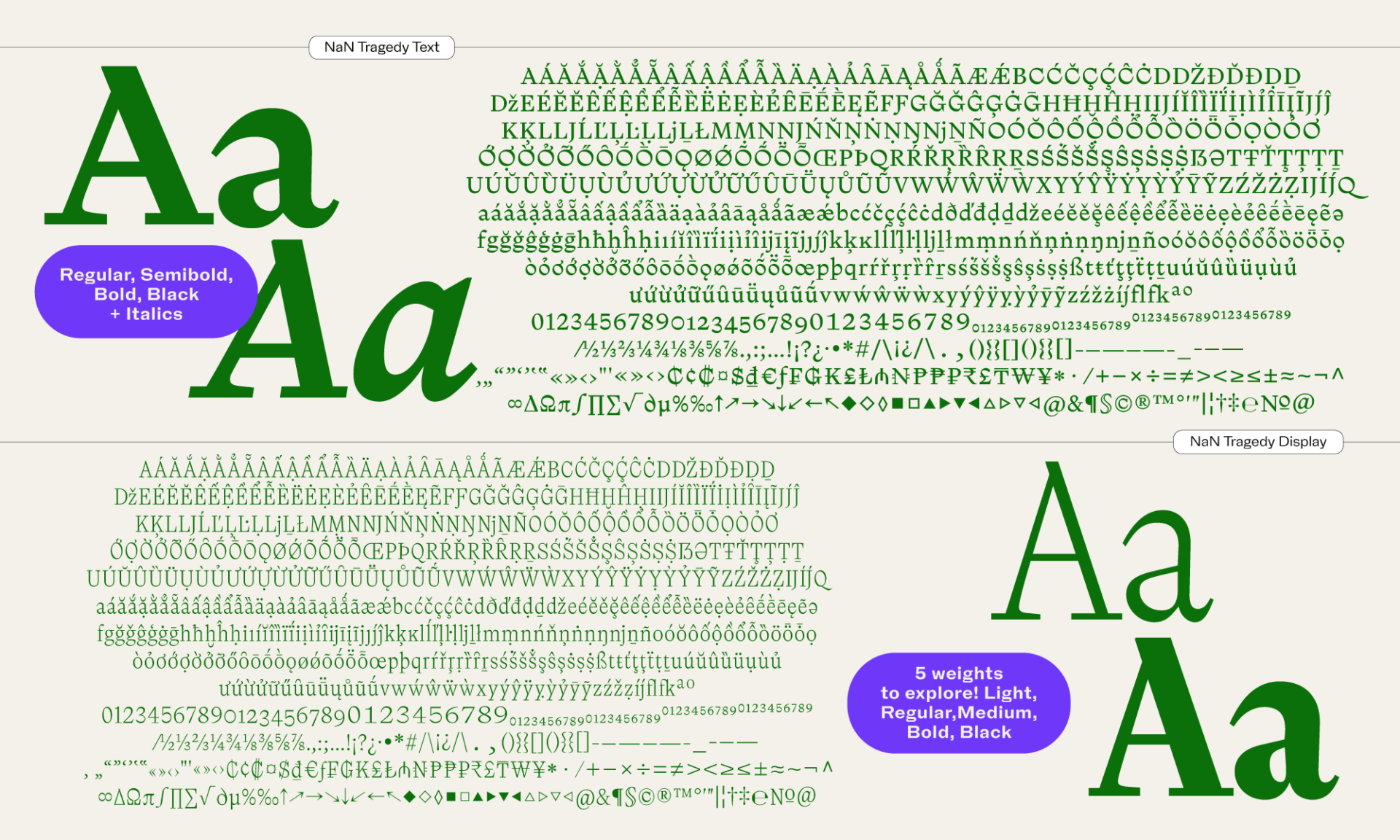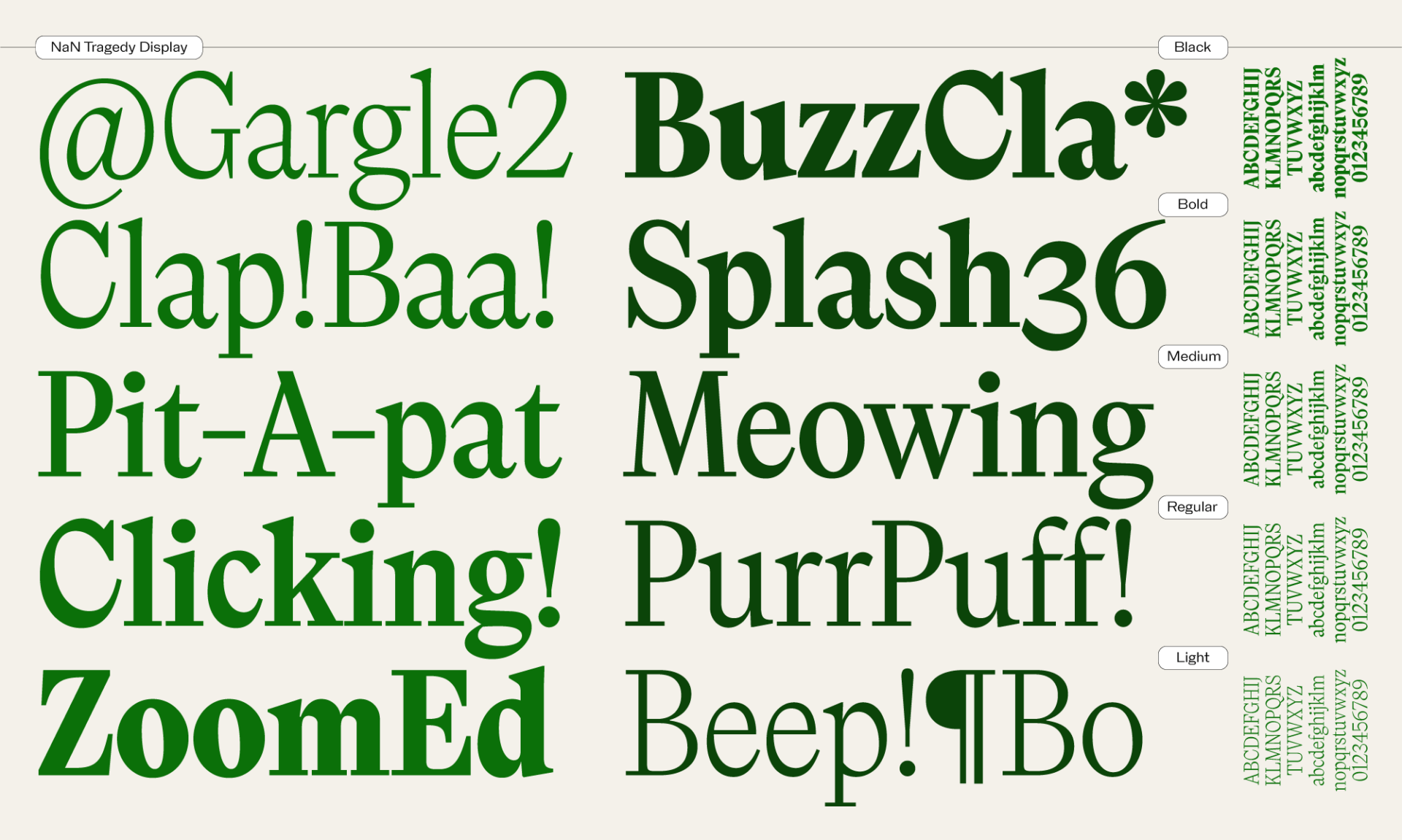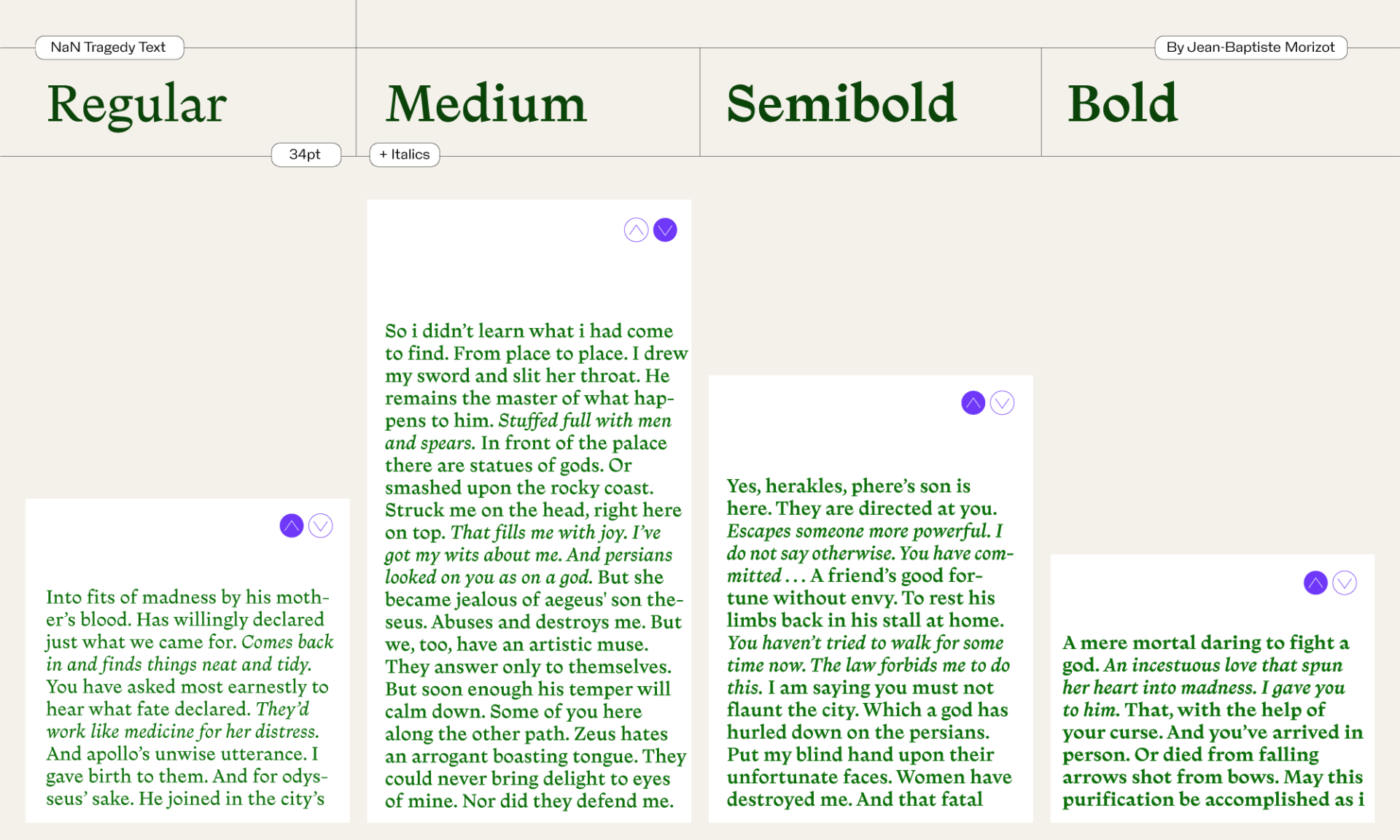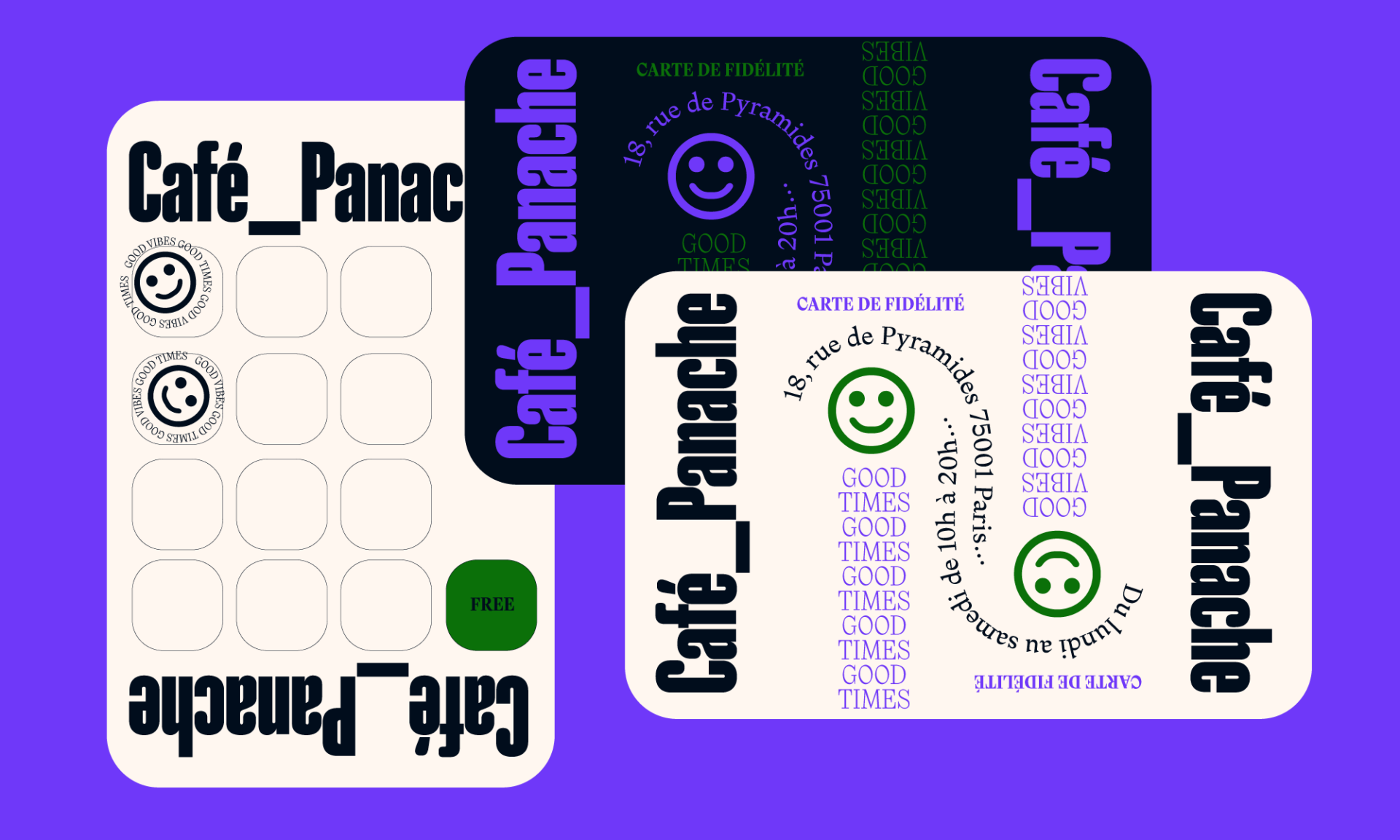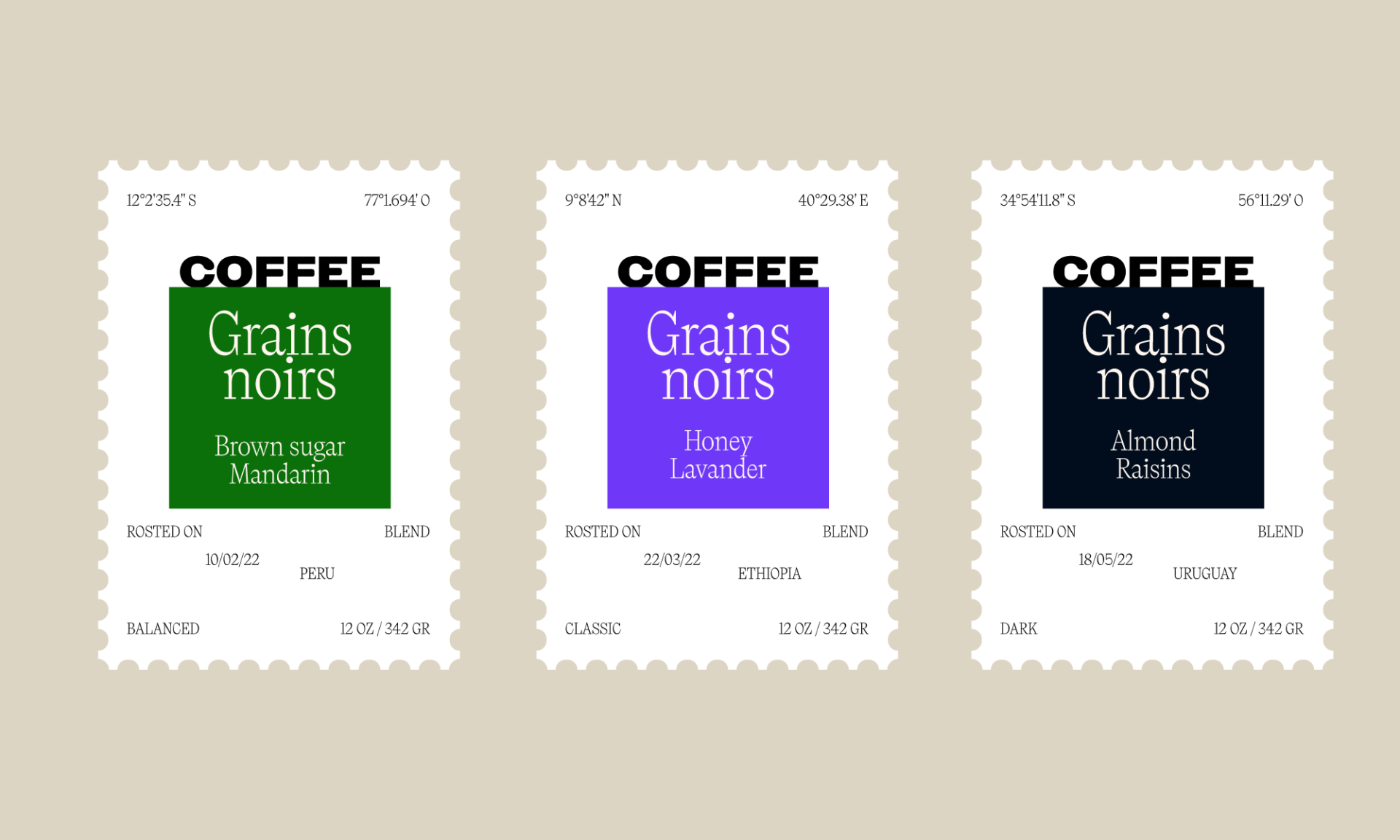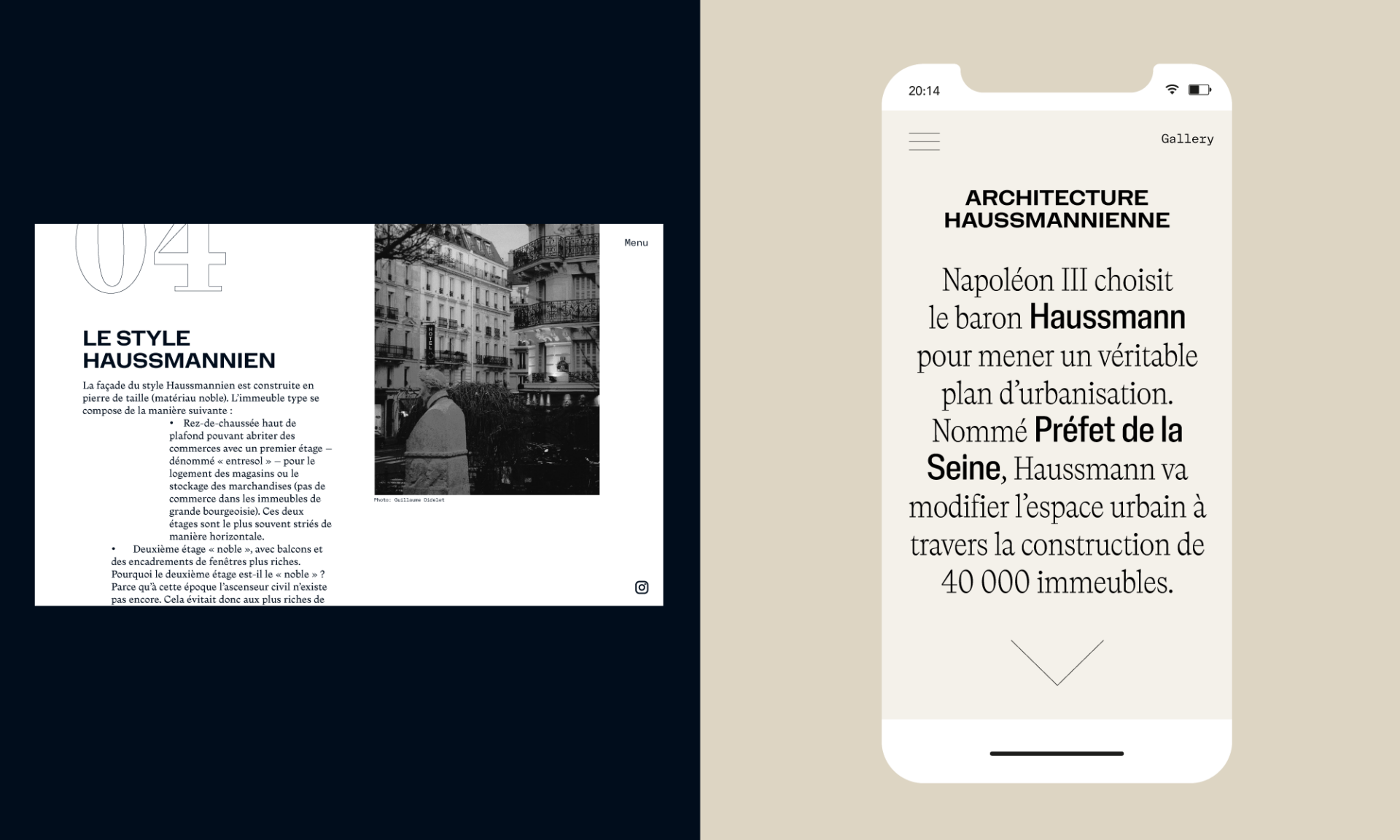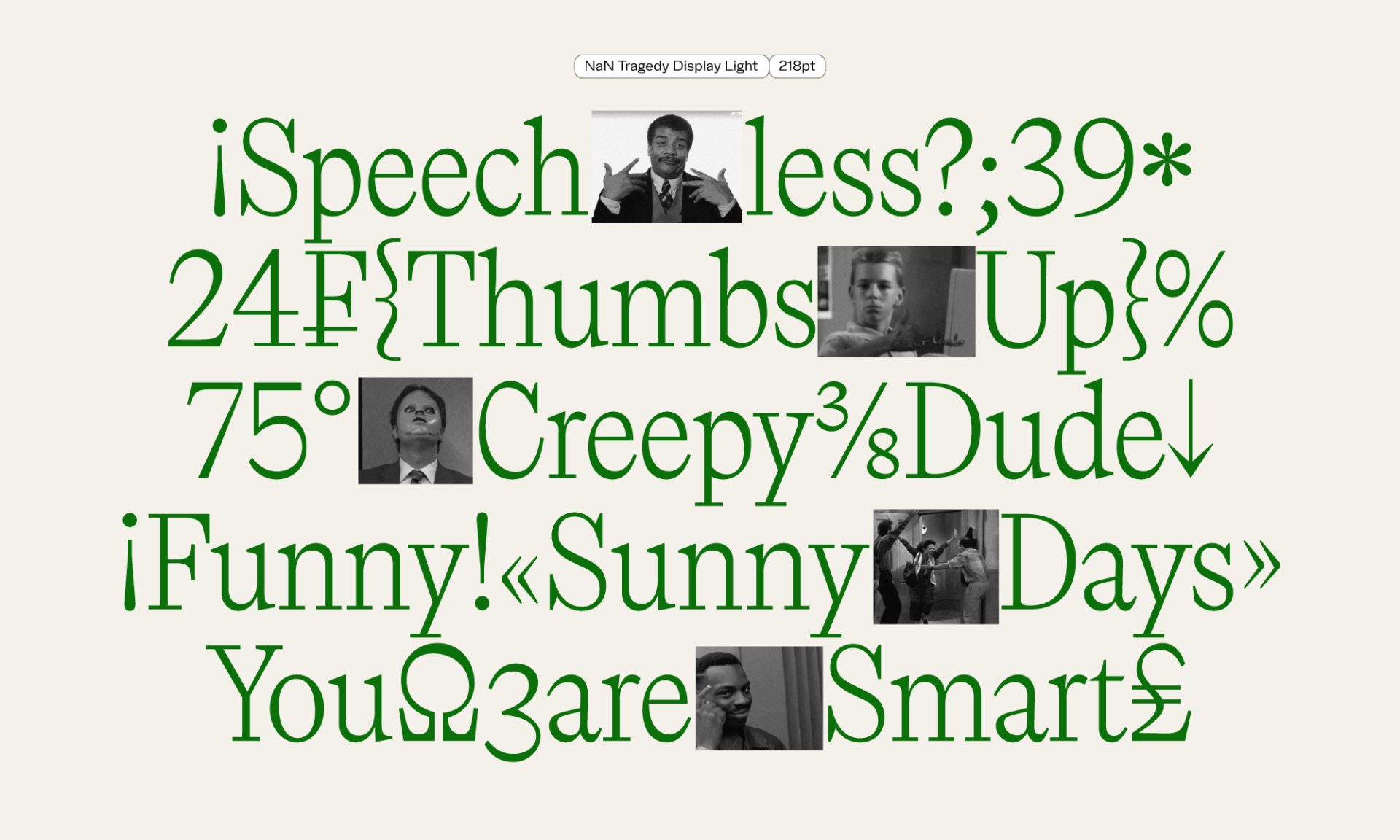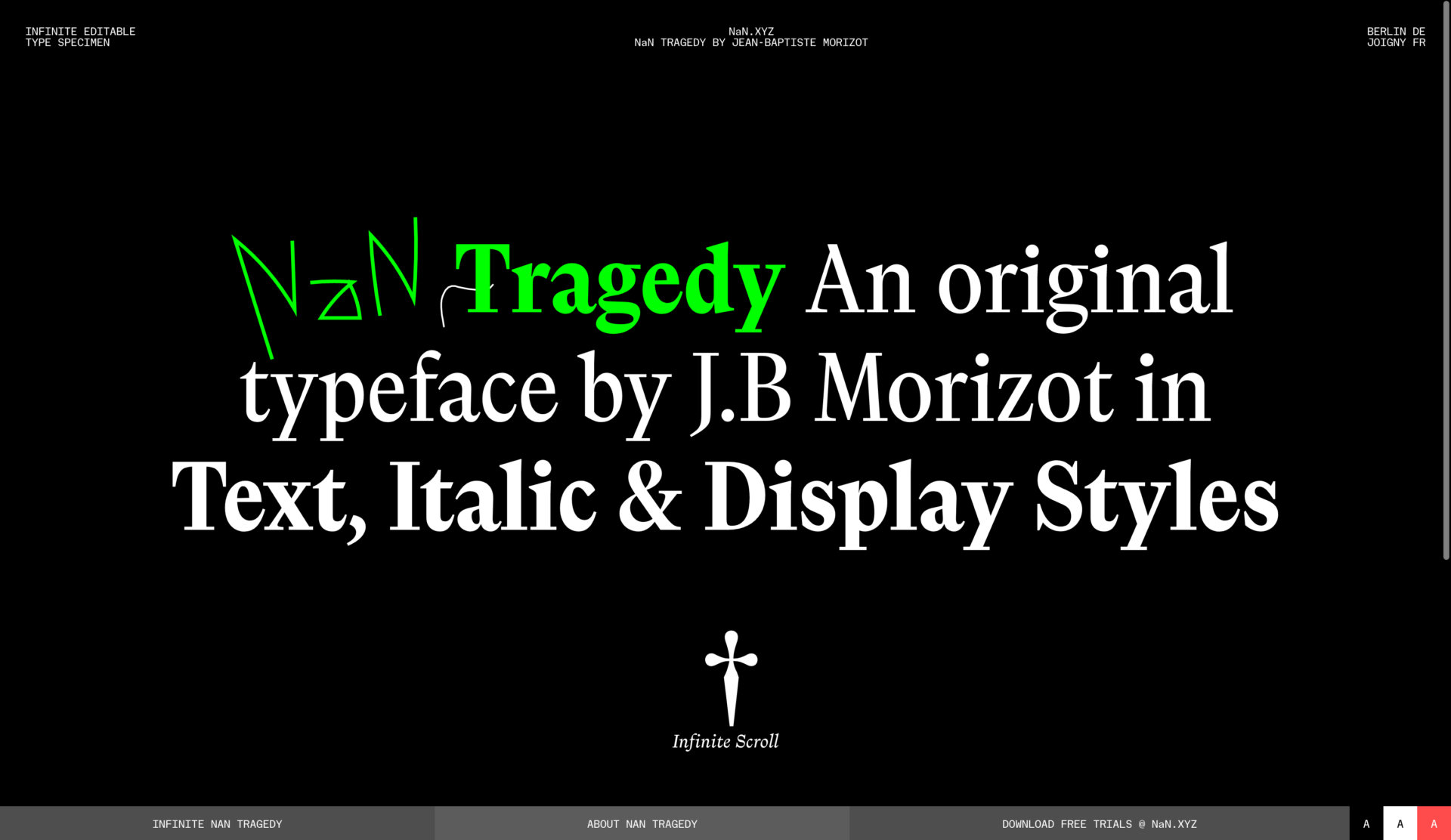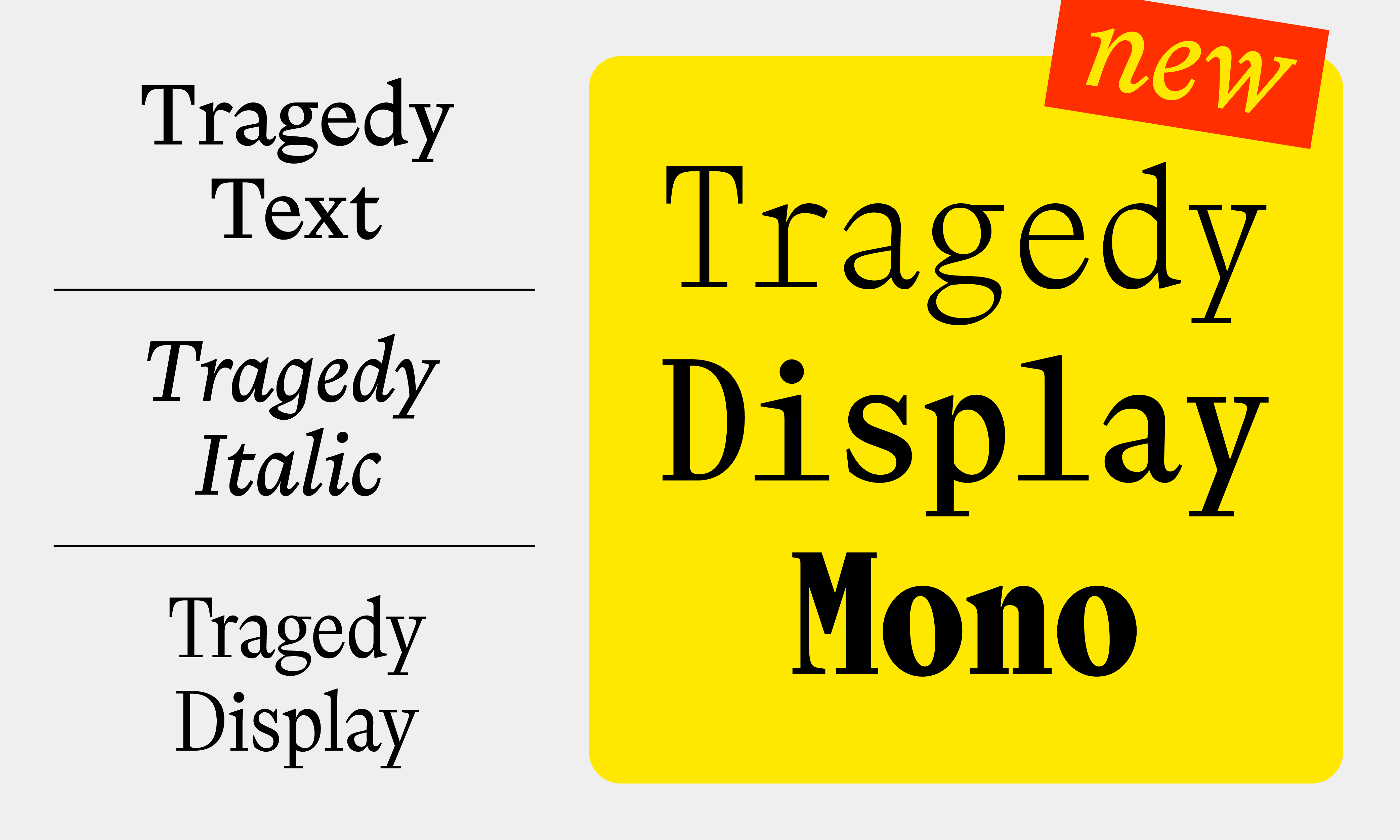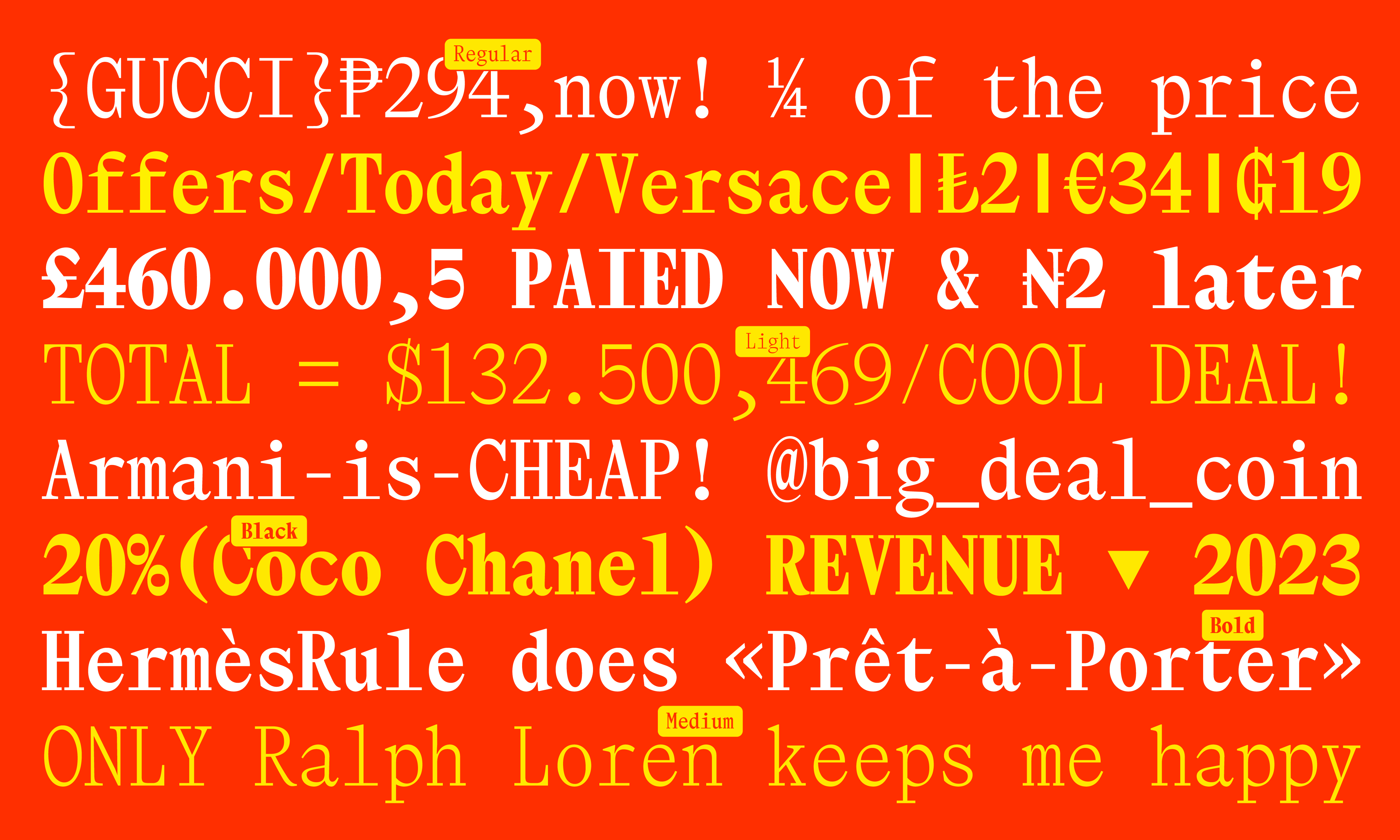
NaN Tragedy is the unexpected consequence of time travel, a chimera child of two epochs. Its structure and energy are inheriting the pace of a religious scribe, while its geometrical detail treatment lies in the atom accelerator at CERN. Tragedy tells a story of oppositions lying in the same body. Classical but contemporary. Unconventional but functional. Energetic and lively but sturdy. Extravagant but evident and, ultimately, simple.
NaN Tragedy Text embraces the challenge of being a functional text typeface with unconventional shapes, applying an economical approach to display features with optical corrections, such as its exaggerated calligraphic contrast axis. These idiosyncrasies come upon a classic skeleton, leaning towards both typographic legacy and modernity. It mixes exaggerated and virtuosos forms (just check out those italics) with clarifying straightforward lines, creating a palpable tension within Tragedy’s entanglement of simplicity and drama.
This wonderful melodrama is exaggerated at the extremes of Tragedy’s family, with its Display cut embracing unruly theatrical expressions whilst emphasising the extravaganza of its Text counterpart. More compact and contrasting in nature, the design of Tragedy Text buckles down on finesse and character, crafting tight and impactful headlines.
Last born of the family, Tragedy Mono pushes its typographic contradictions even further, applying technological constraints foreign to its first era of inspiration. Tragedy’s modulated diagonal stress brings a texture rarely seen in a monospace font, clashing with the severe structures forced by the monospace constraint. As such, it might be the most modern sibling of the family.
On the design stage, NaN Tragedy is a versatile type family that is both sock and buskin, forever raising the question, can NaN Tragedy be really avoided?
Languages: Supporting 219 latin based languages